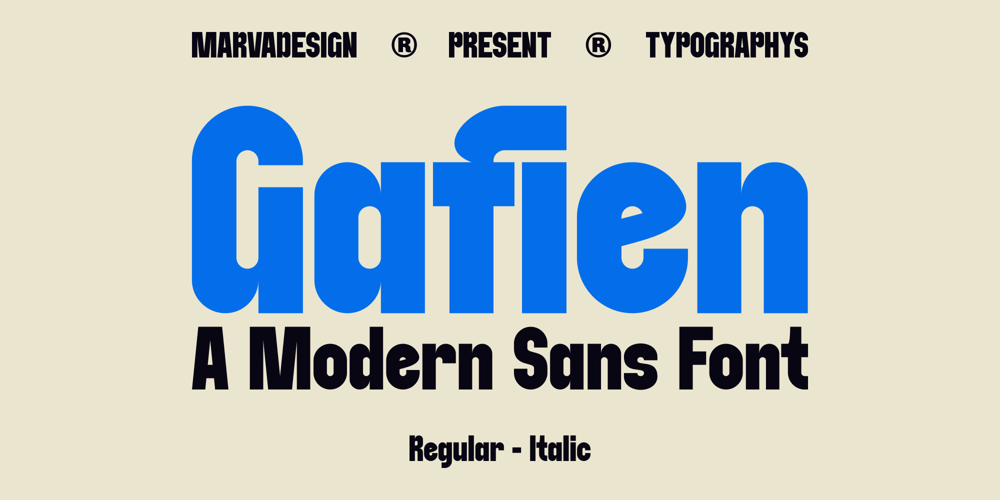
Gafien Font Family was designed by Febrie Setiawan and published by Marvadesign. Gafien contains 2 styles and family package options. Introducing Gafien Sans, a sleek and versatile typeface meticulously crafted for modern design applications. With its condensed form factor and clean lines, Gafien is designed to maximize impact while conserving space, making it ideal for headlines, titles, and display purposes.Gafien Sans embodies a perfect balance between functionality and aesthetics. Each letterform is meticulously engineered to ensure optimal legibility without compromising on style. The condensed proportions give it a distinctive appearance, allowing for efficient use of space without sacrificing readability.Versatility is a key feature of Gafien Sans. Whether used in print or digital media, it effortlessly adapts to a wide range of design contexts, from corporate branding to editorial layouts. Its clean, modern aesthetic lends a touch of sophistication to any project, while its condensed form adds a sense of dynamism and energy.